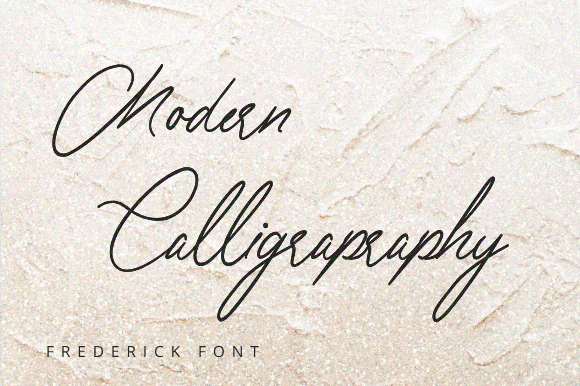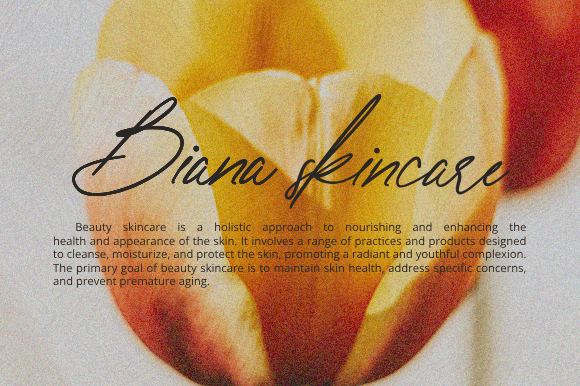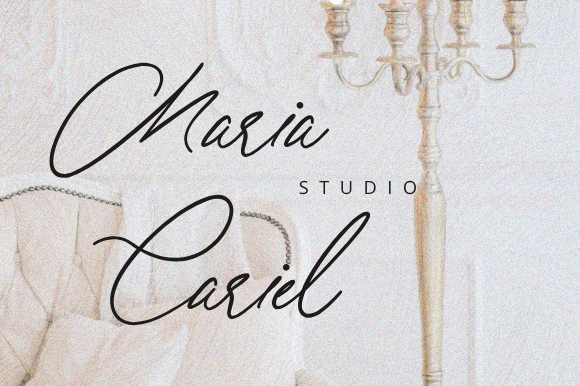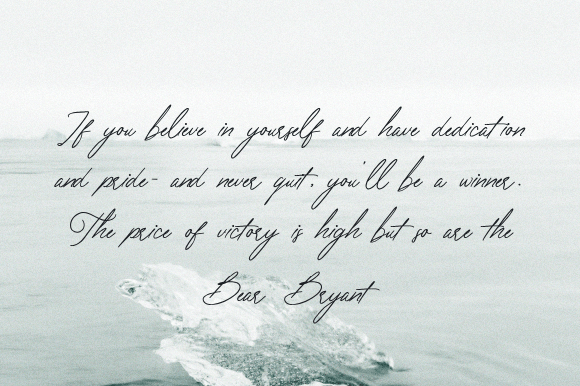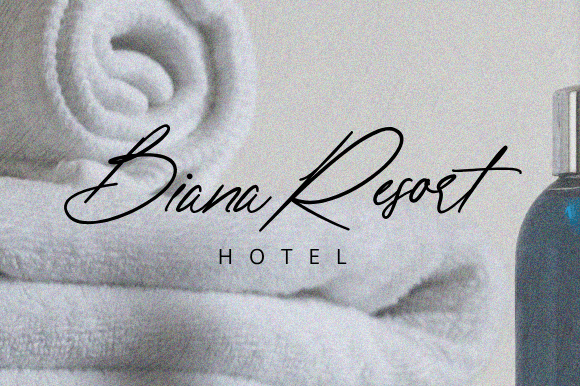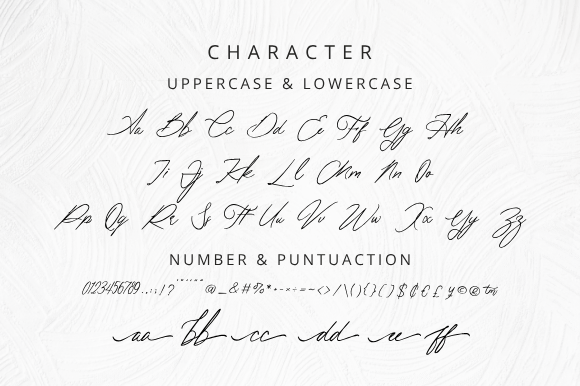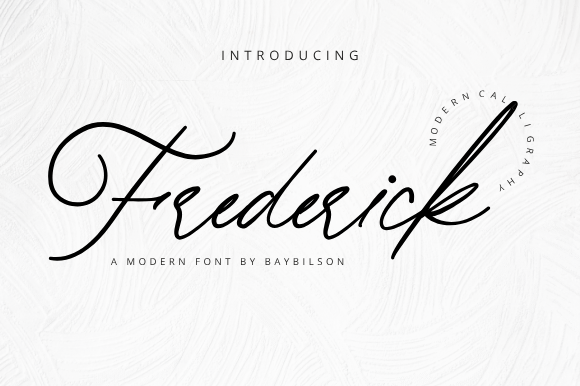
Introducing Frederick Font: A Timeless Typeface for Modern Design
In the world of typography, a well-crafted font can elevate a design project from ordinary to extraordinary. Meet “Frederick,” a versatile and elegant typeface that seamlessly blends classic aesthetics with a modern twist. Crafted with meticulous attention to detail, this font exudes sophistication and timelessness, making it an ideal choice for designers and crafters seeking to add a touch of refinement to their work.
The Art of Elegance: Design Features of Frederick Font
The letterforms of “Frederick” boast clean lines and balanced proportions, ensuring legibility across a variety of applications. The font’s character set includes a range of weights and styles, providing flexibility for various design projects. Whether used for editorial design, branding, or digital interfaces, “Frederick” maintains a sense of refinement and professionalism. Its graceful curves and distinct letter shapes contribute to a harmonious and visually pleasing reading experience.
Versatility at Its Finest: Applications of Frederick Font
One of the standout features of “Frederick” is its versatility. This font can be used in a wide range of design applications, from:
• Editorial Design: Add a touch of sophistication to your publications, magazines, and newspapers with “Frederick’s” elegant and refined letterforms.
• Branding: Create a lasting impression with “Frederick’s” professional and polished aesthetic, perfect for logos, business cards, and corporate materials.
• Digital Interfaces: Enhance user experience with “Frederick’s” clean and legible design, ideal for websites, mobile apps, and digital platforms.
What Sets Frederick Font Apart?
In a sea of fonts, “Frederick” stands out for its unique blend of classic and modern elements. Here are a few key features that set it apart:
• Timeless Design: “Frederick” is crafted to withstand the test of time, ensuring your design remains relevant and stylish for years to come.
• Attention to Detail: Every aspect of “Frederick” has been meticulously crafted to ensure a polished and refined aesthetic.
• Flexibility: With a range of weights and styles, “Frederick” can be adapted to suit a variety of design needs and applications.
Tips for Using Frederick Font in Your Design Projects
To get the most out of “Frederick,” consider the following tips:
• Pair with Complementary Fonts: Combine “Frederick” with complementary fonts to create visual interest and hierarchy in your design.
• Experiment with Weights and Styles: Take advantage of “Frederick’s” range of weights and styles to add depth and variation to your design.
• Pay Attention to Kerning and Tracking: Adjust kerning and tracking to ensure optimal legibility and visual flow.
“Frederick” is a versatile and elegant typeface that offers a unique blend of classic aesthetics and modern sophistication. With its clean lines, balanced proportions, and range of weights and styles, this font is perfect for designers and crafters seeking to add a touch of refinement to their work. Whether used for editorial design, branding, or digital interfaces, “Frederick” is sure to make a lasting impression.